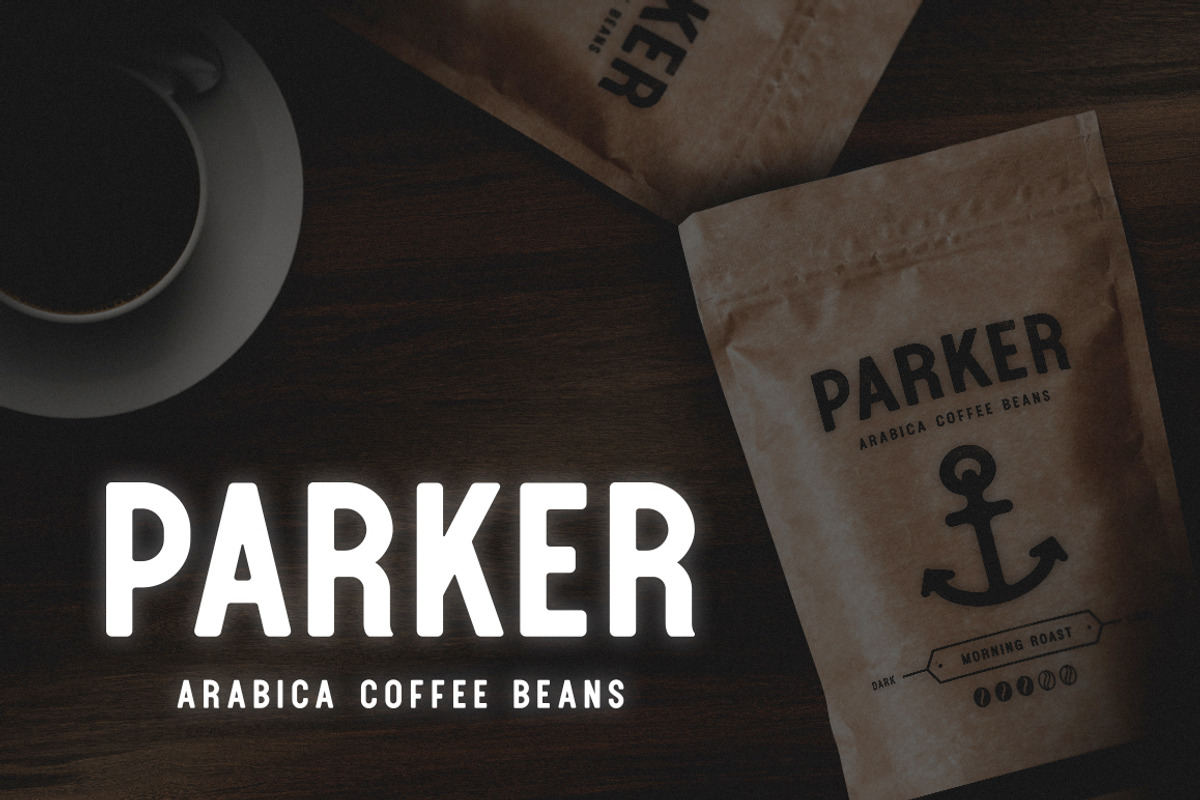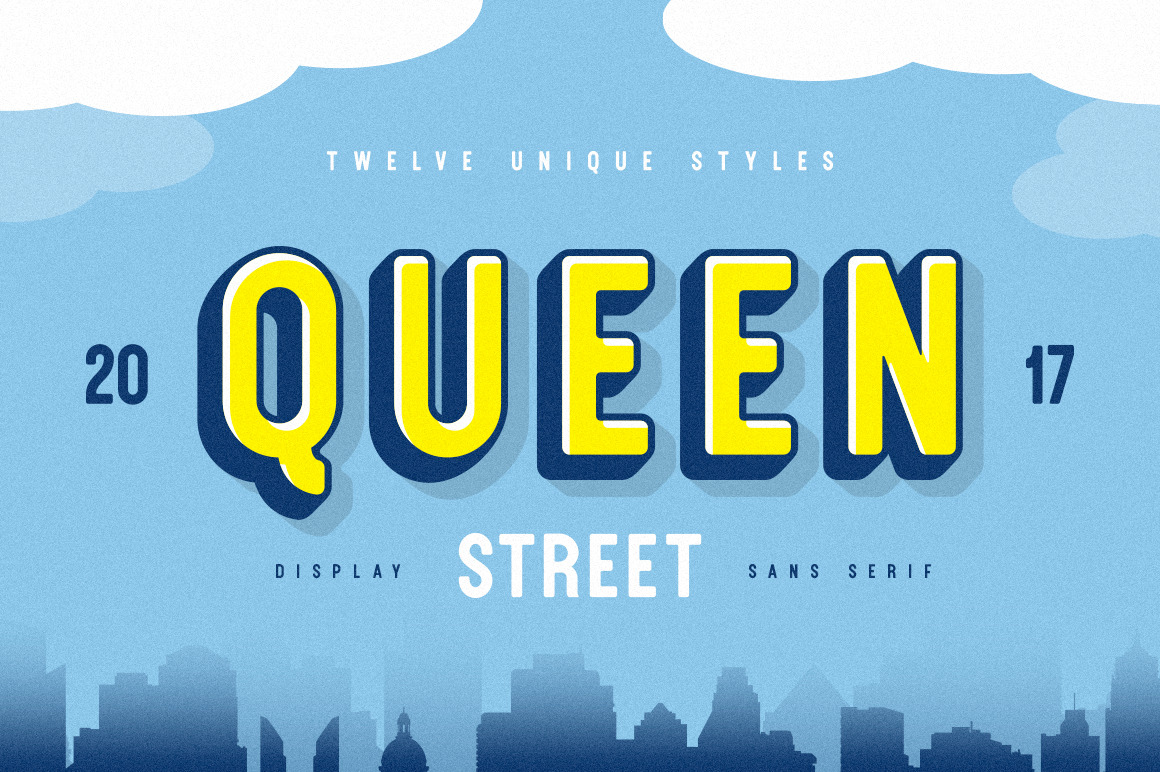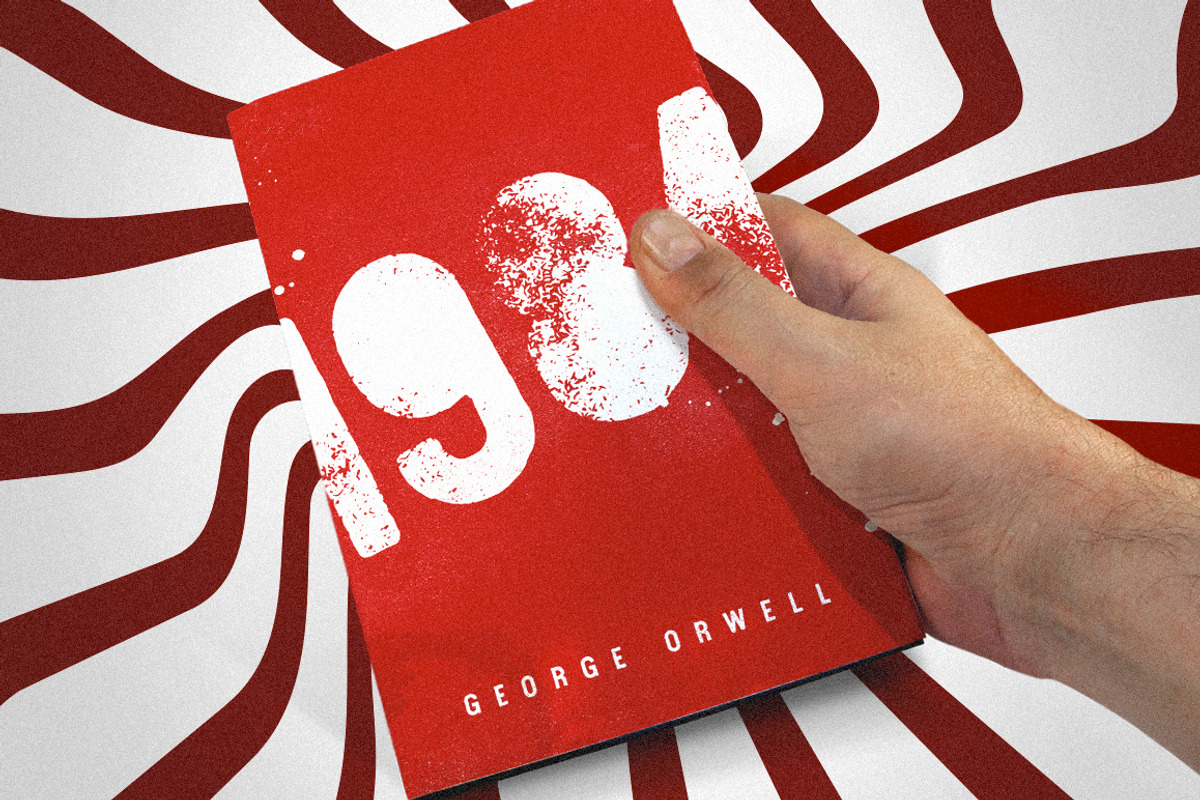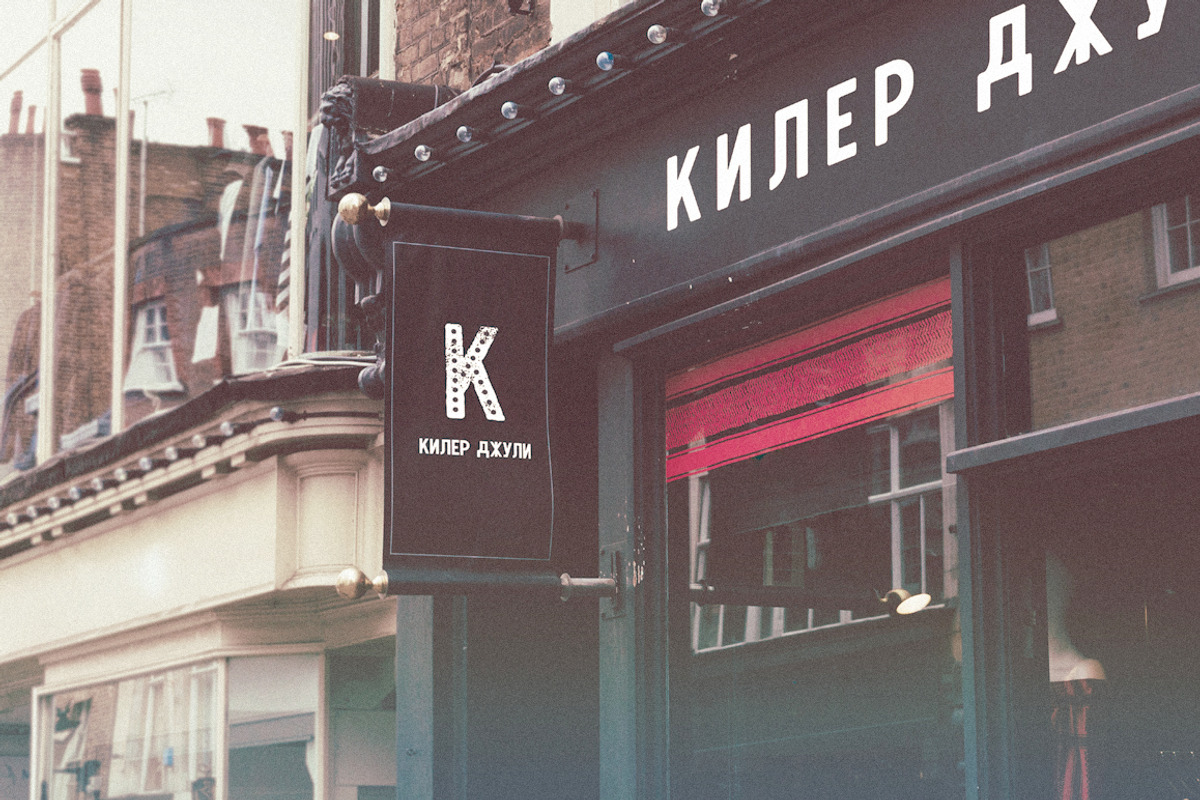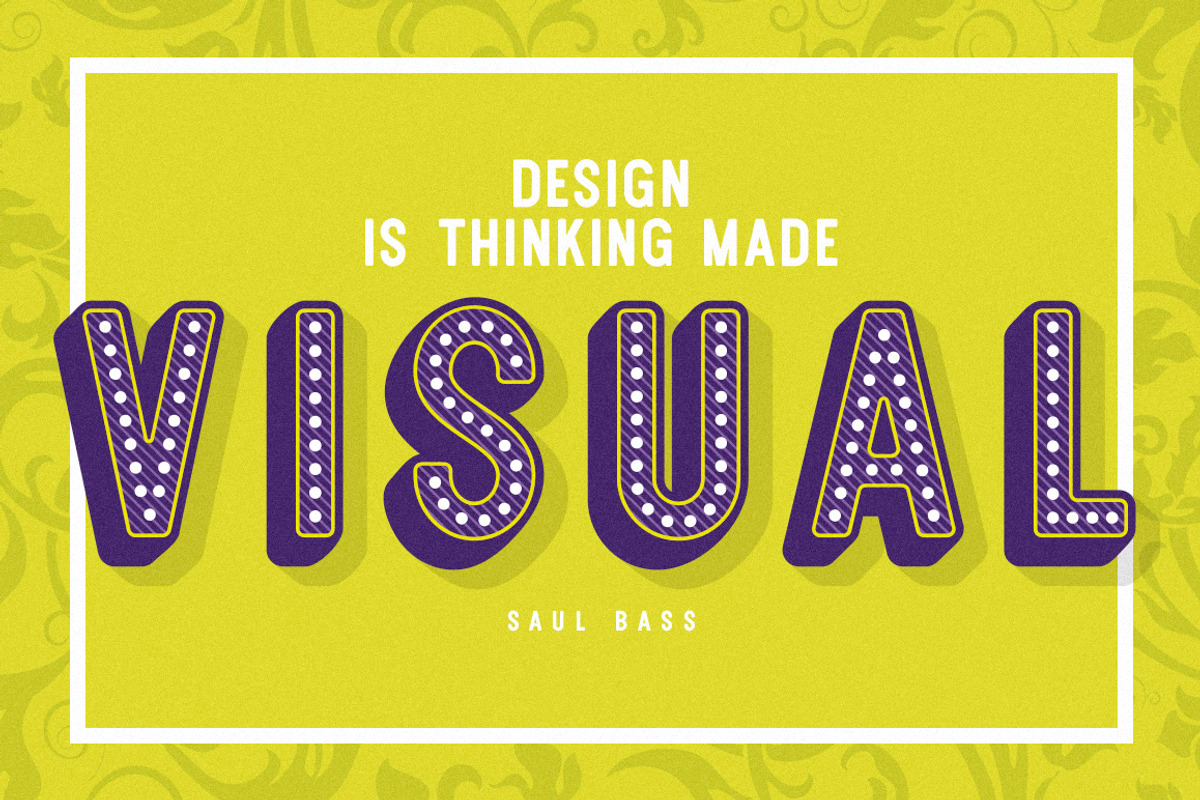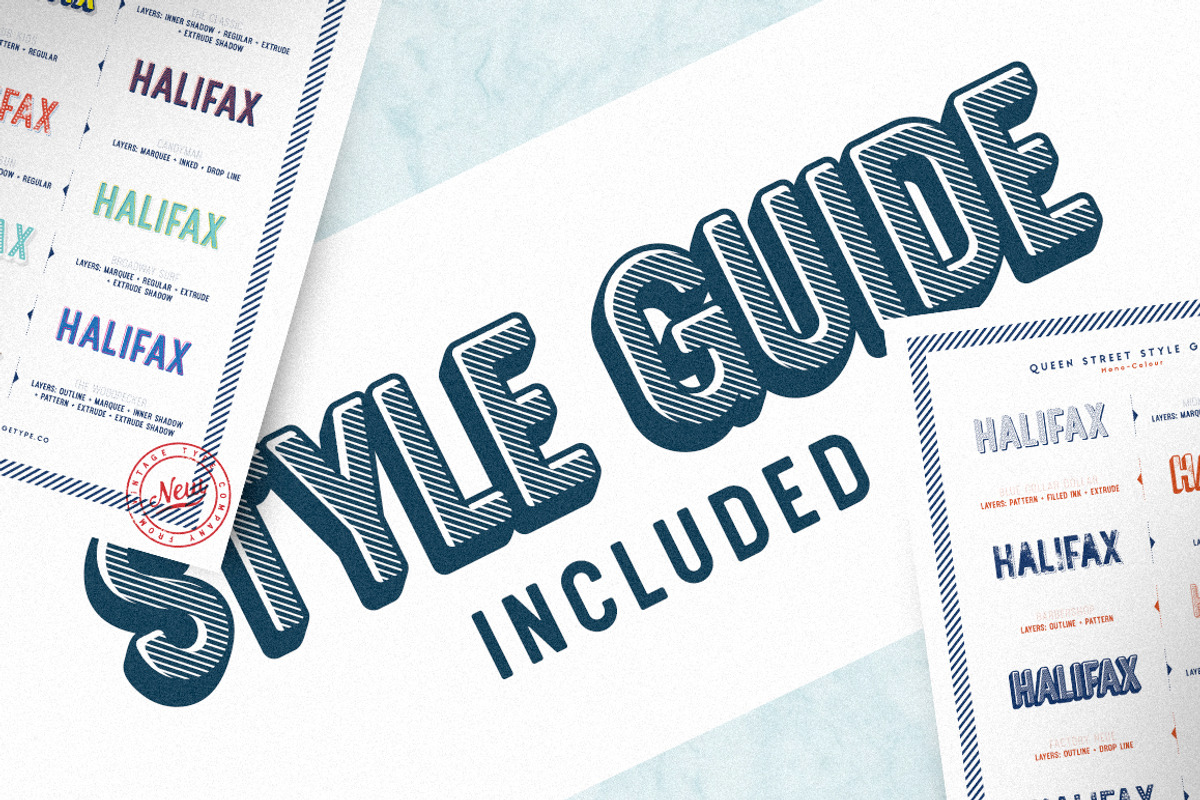
Queen Street Display Font
Queen Street Display Font is the latest vintage inspired display font family from Vintage Type Co.!
This typeface was inspired by the hand painted & carved signage of the boutique shops that are commonly found in most downtown cores. Pay homage to simpler and less technological times with this stackable font that features multilingual support, with basic cyrillic included!
Stack several layers on top of each other to come up with bold, colourful compositions, or use the layers individually for a cleaner aesthetic.
It also comes included with multilingual support for the following languages: Belarusian, Breton, Bulgarian, Catalan, Danish, Estonian, English, Finnish, French, German, Hungarian, Icelandic, Italian, Latvian, Lithuanian, Norwegian, Portuguese, Romanian, Russian, Rusyn, Scottish Gaelic, Serbian, Slovak, Slovenian, Spanish, Swedish, Turkish, Ukrainian, Welsh.